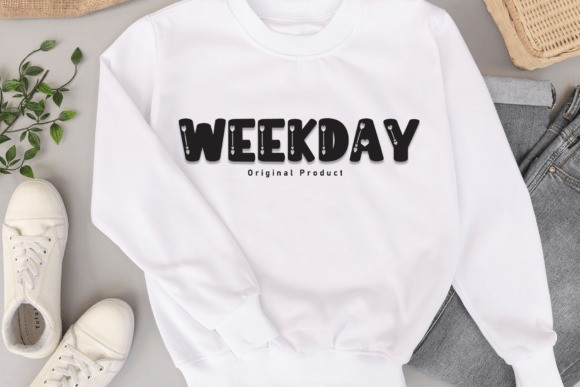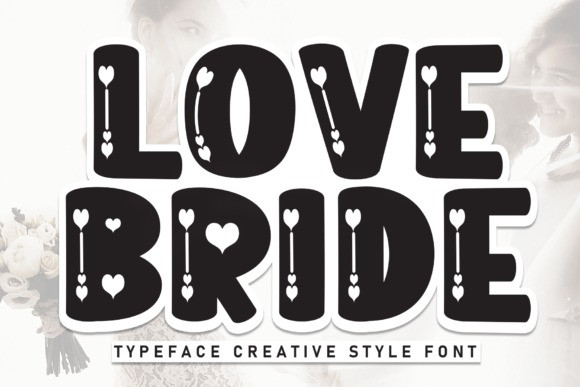
Love Bride Font
Love Bride Font is a playful font that features bold letters decorated with cute hearts inside. It’s perfect for romantic themes and adds a fun touch to any design!